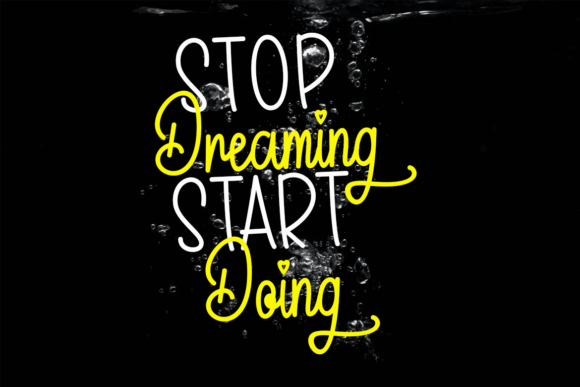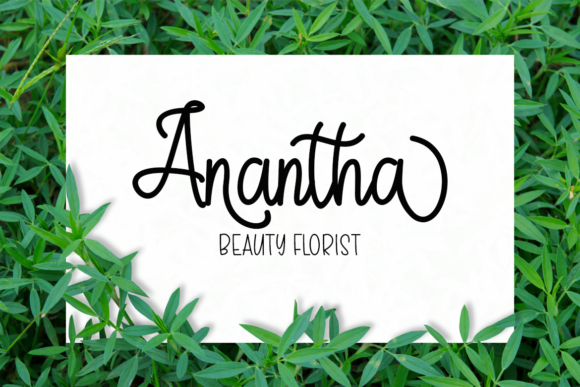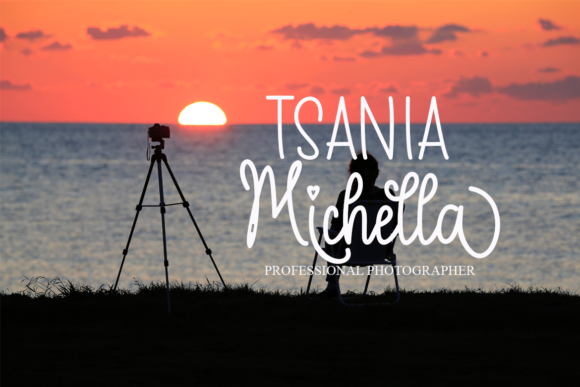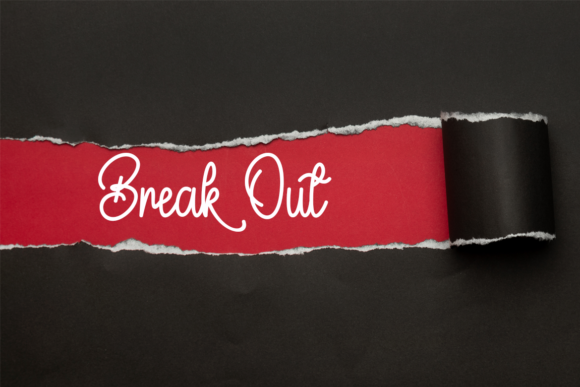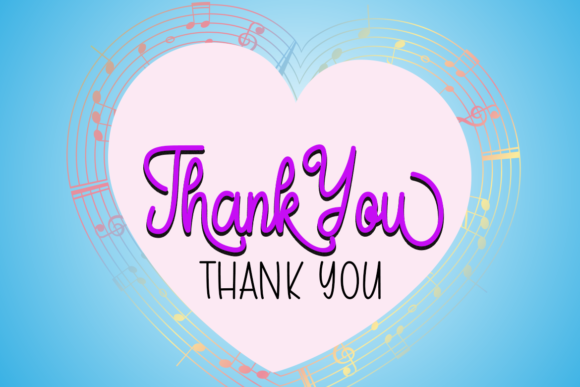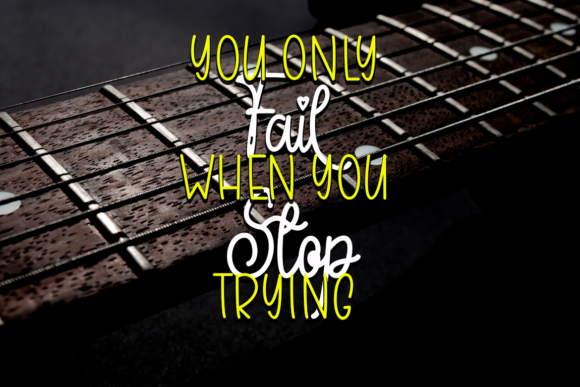
Melody Memory Font
Melody Memory is a lovely duo font (script and sans serif). This font is PUA encoded which means you can access all of the glyphs and swashes with ease! Together or separately, these two fonts will enrich your library!